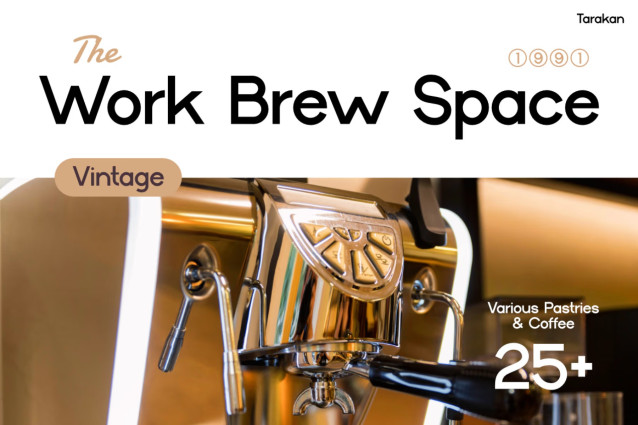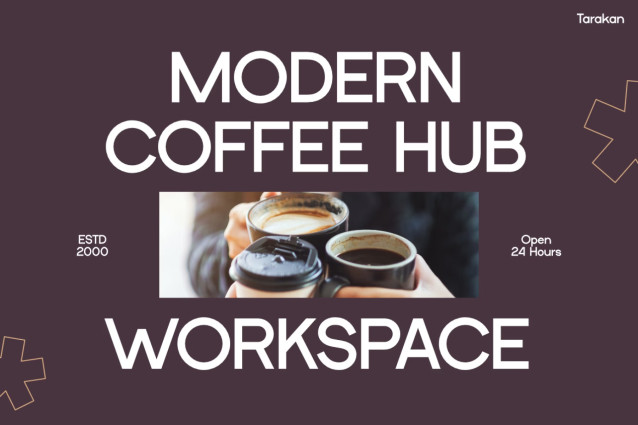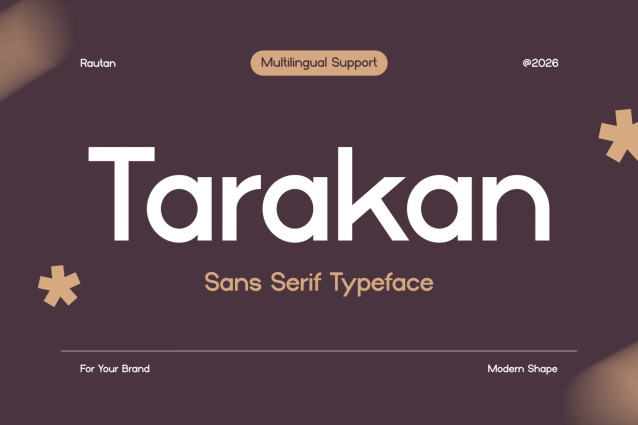
Tarakan Font is a sleek and modern sans serif typeface designed to elevate your visual content with a clean and professional look. At first glance, its minimalist structure and balanced letterforms create a calm and sophisticated aesthetic. Moreover, the smooth curves and geometric shapes give it a contemporary feel that works beautifully across digital platforms.
Because of its clarity and simplicity, the font enhances readability while still maintaining a stylish presence. In addition, Tarakan supports 67 languages, making it highly versatile for global use. As a result, it becomes a powerful tool for designers who want elegant, modern, and effective communication.